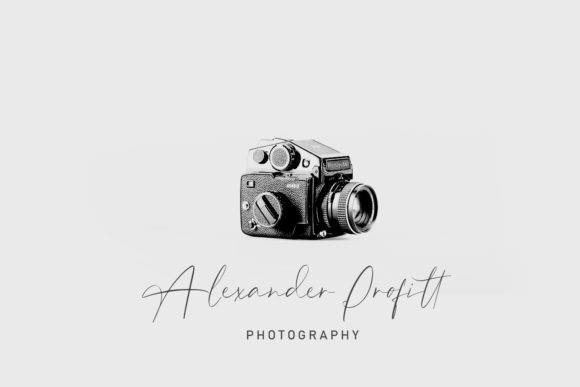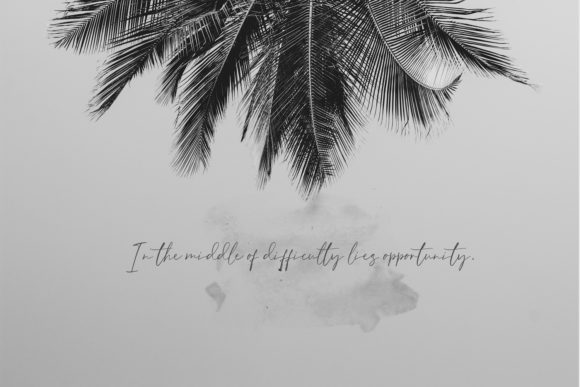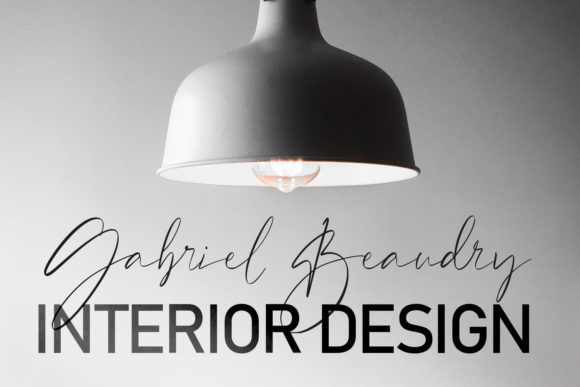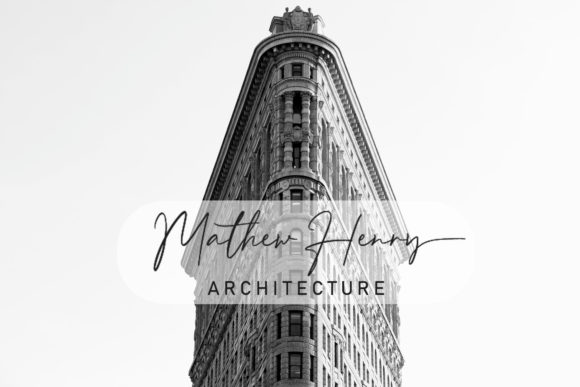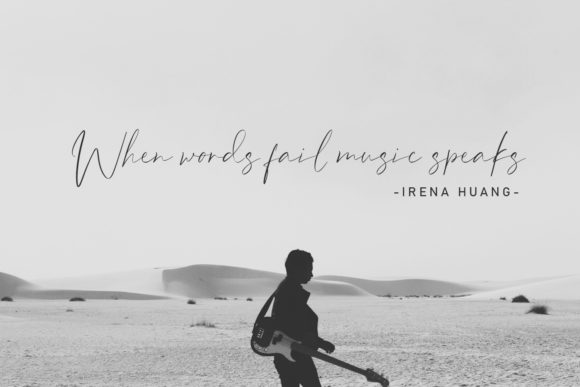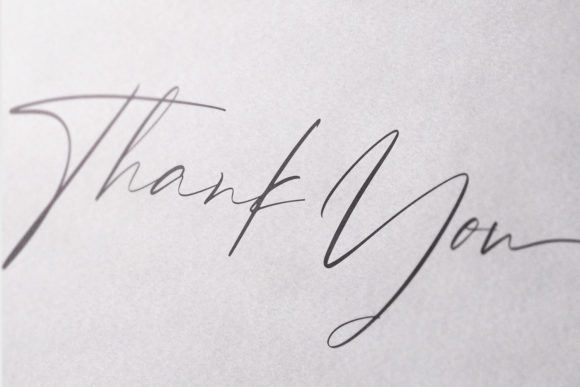
Birdsong Font: The Ultimate Handwritten Script for Creative Projects
Are you a designer, crafter, or DIY enthusiast looking for a font that can add a personal touch to your creative projects? Look no further than Birdsong, a cute and casual handwritten font that exudes warmth and friendliness. With its gorgeous swashes and ligatures, Birdsong is the perfect script to turn your ideas into stunning works of art.
What Makes Birdsong Special?
Birdsong is more than just a font – it’s a creative tool that can help you elevate your designs and add a touch of personality to your projects. Here are some of the features that make Birdsong stand out:
- Cute and Casual Handwritten Style: Birdsong features a playful, handwritten style that’s perfect for creating friendly and approachable designs.
- Gorgeous Swashes and Ligatures: The font comes with beautiful swashes and ligatures that add a touch of elegance and sophistication to your designs.
- PUA Encoded: Birdsong is PUA encoded, which means you can access all the cute glyphs and swashes with ease, making it simple to create stunning designs.
- Alternate Glyphs and Ligatures: The font features a wealth of special features, including alternate glyphs and ligatures, giving you endless creative possibilities.
Perfect for a Variety of Creative Projects
Birdsong is a versatile font that can be used for a wide range of creative projects, including:
- Instagram Graphics: Add a personal touch to your Instagram posts and stories with Birdsong’s friendly and approachable style.
- DIY Projects: Use Birdsong to create beautiful calligraphy scripts for your DIY projects, such as handmade cards, gift tags, and more.
- Branding and Packaging: Birdsong is perfect for creating custom branding and packaging designs that stand out from the crowd.
- Stationery and Invitations: Create stunning stationery and invitations with Birdsong’s elegant and sophisticated style.
Tips for Using Birdsong Effectively
Here are some tips for using Birdsong effectively in your designs:
- Experiment with Swashes and Ligatures: Don’t be afraid to experiment with Birdsong’s gorgeous swashes and ligatures to add a touch of elegance to your designs.
- Mix and Match with Other Fonts: Birdsong pairs well with other fonts, so don’t be afraid to mix and match it with other scripts and sans serifs to create a unique look.
- Use for Headings and Titles: Birdsong is perfect for creating stunning headings and titles that grab attention.
- Add a Personal Touch: Use Birdsong to add a personal touch to your designs, making them more friendly and approachable.
In conclusion, Birdsong is a must-have font for designers, crafters, and DIY enthusiasts looking to add a personal touch to their creative projects. With its cute and casual handwritten style, gorgeous swashes and ligatures, and PUA encoding, Birdsong is the perfect script to turn your ideas into stunning works of art. Whether you’re creating Instagram graphics, DIY projects, or branding and packaging designs, Birdsong is the ultimate font to help you achieve your creative goals.